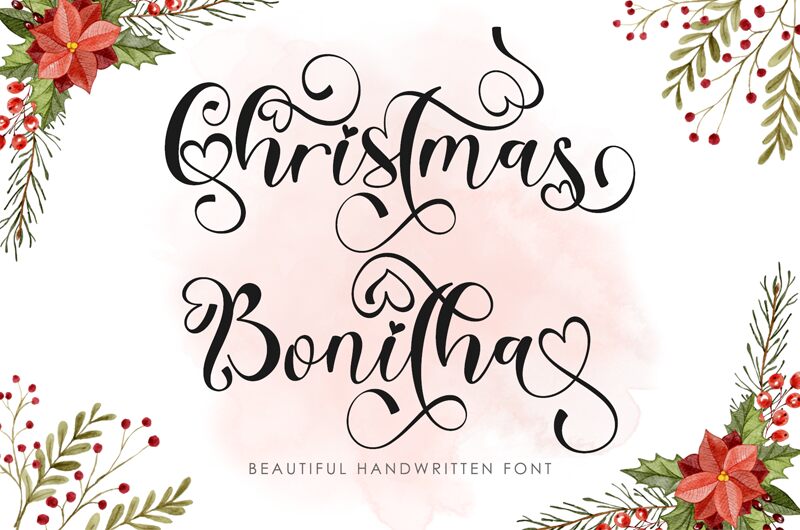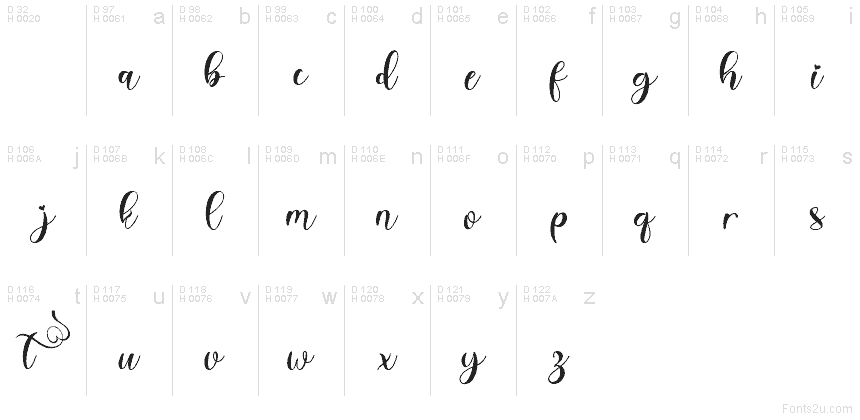
Bonitha Lowercase
Bonitha Lowercase font by Yoga Letter is a free holiday script typeface that wraps every word in a ribbon of ink. Tall, sweeping curves, lush loops, and playful curls give it that handwritten, just-signed Christmas card feeling, while the tiny heart detail adds a warm, personal touch. The strokes are smooth and inky, like a calligraphy pen on thick cardstock, making Bonitha feel cozy, romantic, and festive all at once.
Using Bonitha Lowercase, your Christmas projects instantly feel more heartfelt—think greeting cards, gift tags, mug designs, seasonal logos, party invitations, and Instagram quote posts. This free font shines when used large, letting its flourishes breathe and swirl across the page. Pair it with a clean, minimal sans serif for dates, addresses, or small captions so the Bonitha family can take center stage in your layout.